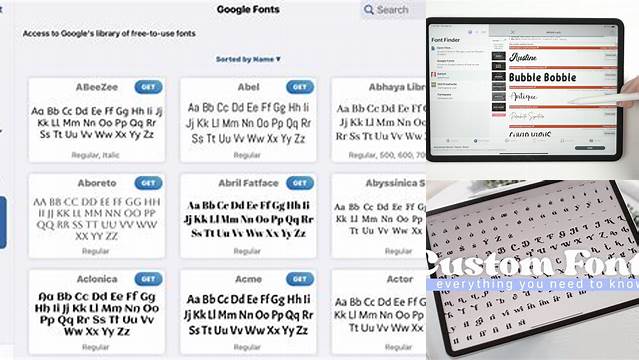
Best Fonts For IPad: A Comprehensive Guide
Are you looking to explore the best fonts for iPads? If you're a creative professional, student, or just someone who loves customizing their digital space, choosing the right fonts for your iPad can significantly enhance your experience. From improving readability to adding a personal touch to your projects, the perfect font can make all the difference. In this guide, we'll dive into a variety of font options, discuss their ideal uses, and provide tips on how to install and manage them on your iPad. So, let's get started and transform your iPad typography!
Why Choosing the Right Font Matters
Choosing the right font matters more than you might think, especially when it comes to using your iPad for various tasks. Think about it – whether you're drafting emails, creating presentations, or designing graphics, the font you select plays a crucial role in how your content is perceived. A well-chosen font can enhance readability, ensuring that your audience can easily digest the information you're presenting. This is particularly important for tasks like reading ebooks or working on documents for extended periods.
Moreover, fonts have the power to evoke specific emotions and convey a particular tone. A playful, whimsical font might be perfect for a children's book, but it would likely be out of place in a professional business report. Similarly, a sleek, modern font can give your designs a contemporary edge, while a classic serif font might lend a sense of tradition and authority. By carefully considering the context and purpose of your content, you can select a font that not only looks visually appealing but also effectively communicates your intended message.
Beyond aesthetics, the right font can also improve accessibility. Choosing fonts with clear, well-defined characters and ample spacing can make your content more readable for individuals with visual impairments or learning disabilities. This demonstrates a commitment to inclusivity and ensures that your message reaches the widest possible audience. So, when you're selecting fonts for your iPad, remember that it's not just about looks – it's about creating a positive and effective user experience for everyone.
Top Font Choices for iPad
Selecting the top font choices for iPad can really depend on what you're using your iPad for. Luckily there is a wide range of fonts that work great on iPad, offering different styles and functionalities to suit various needs.
System Fonts
Let's begin with system fonts. Your iPad comes pre-loaded with a selection of fonts that are optimized for the device's display. These include classics like San Francisco (the default font for iOS), Helvetica Neue, and Times New Roman. These fonts are generally well-suited for everyday tasks like reading emails, browsing the web, and creating basic documents. They're designed to be highly readable and visually appealing, making them a reliable choice for a wide range of applications.
Popular App Fonts
Moving on to popular app fonts, many apps offer their own unique font selections that can enhance your creative projects. Apps like Procreate and Adobe Creative Suite provide access to a vast library of fonts, ranging from elegant scripts to bold display faces. These fonts often come with advanced features like kerning and ligatures, allowing you to fine-tune your typography and achieve professional-looking results. Some notable app fonts include Montserrat, Raleway, and Open Sans, all of which are versatile and widely used in graphic design.
Third-Party Fonts
Don't forget about third-party fonts! If you're looking for something truly unique, you can explore the world of third-party fonts. Numerous websites and online marketplaces offer fonts for purchase or free download. These fonts can add a personal touch to your projects and help you stand out from the crowd. Just be sure to check the licensing terms before using any third-party fonts, as some may have restrictions on commercial use.
In conclusion, selecting the right fonts for your iPad can significantly enhance your overall experience. By understanding the different types of fonts available, knowing how to install and manage them, and following effective usage tips, you can create visually appealing and highly readable content. Whether you're designing graphics, creating presentations, or simply reading ebooks, the perfect font can make all the difference. So, take the time to explore your options and find the fonts that best suit your needs and preferences. Happy designing, folks!